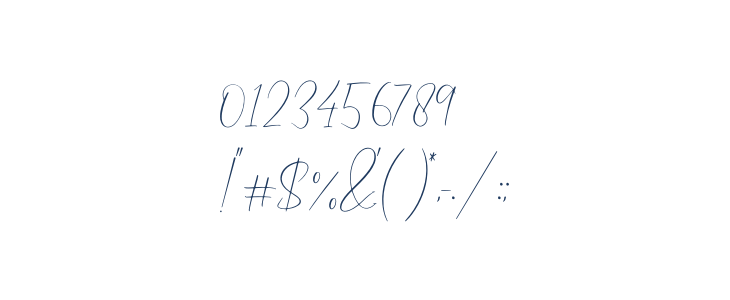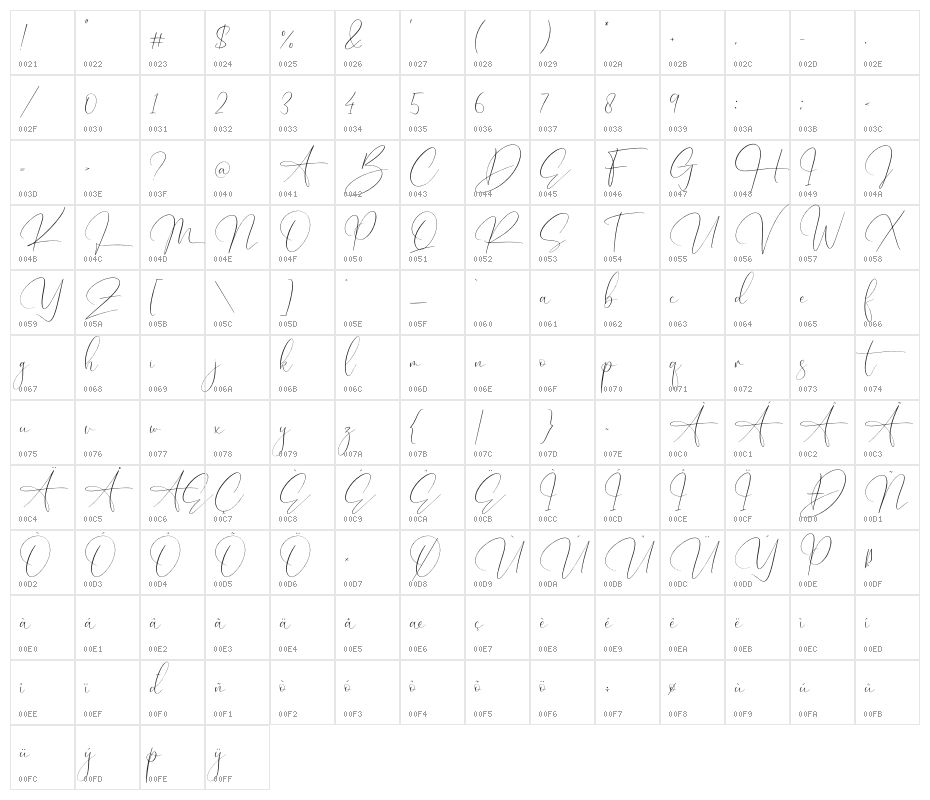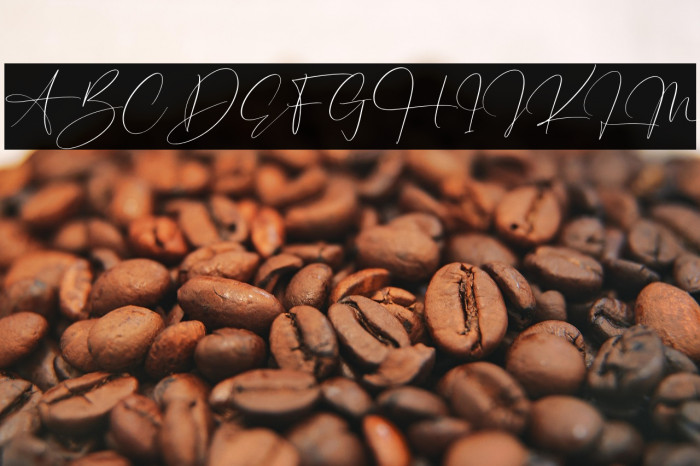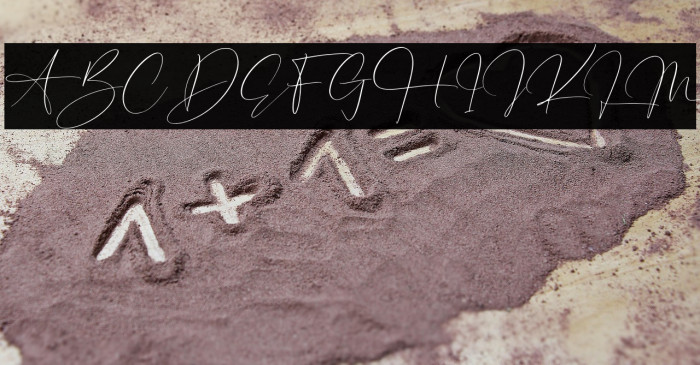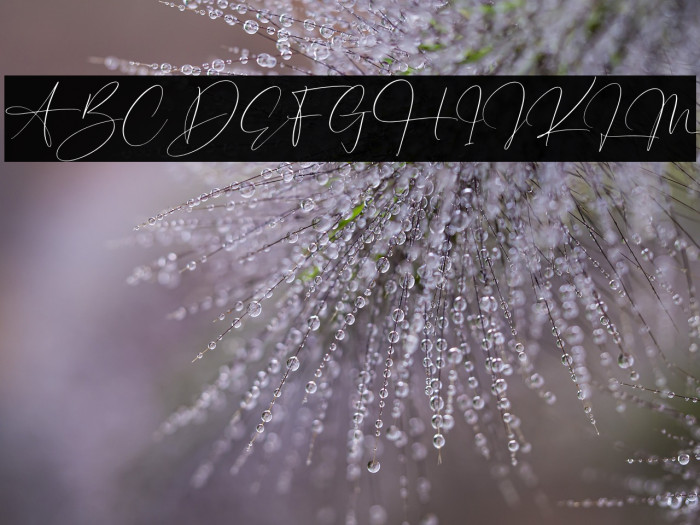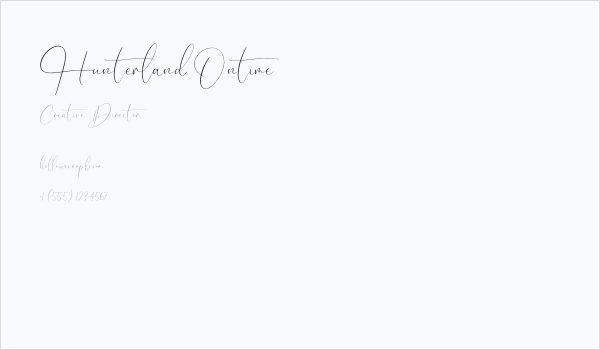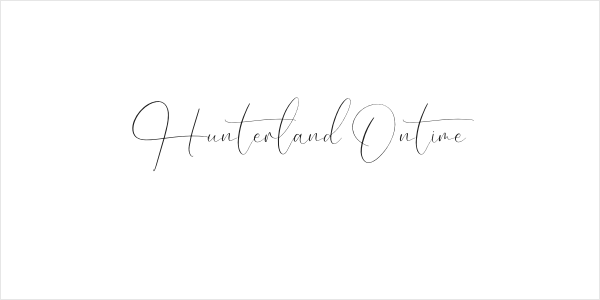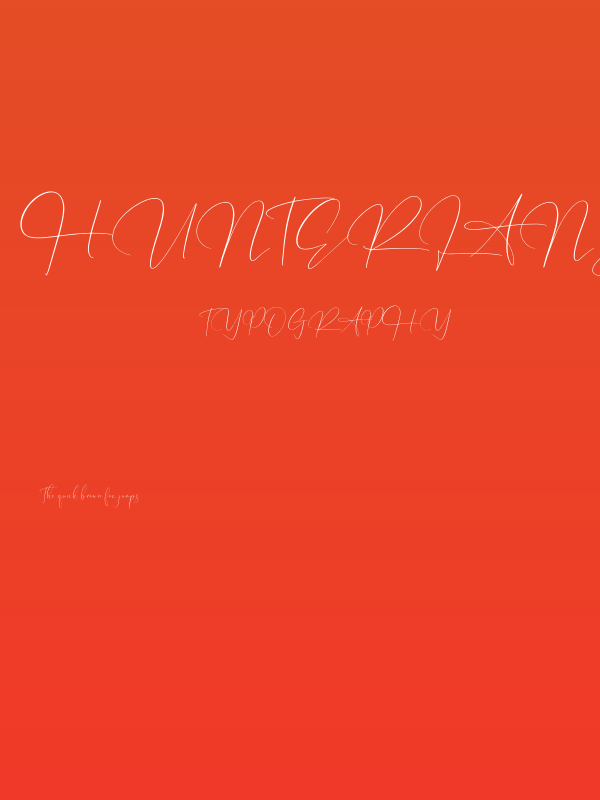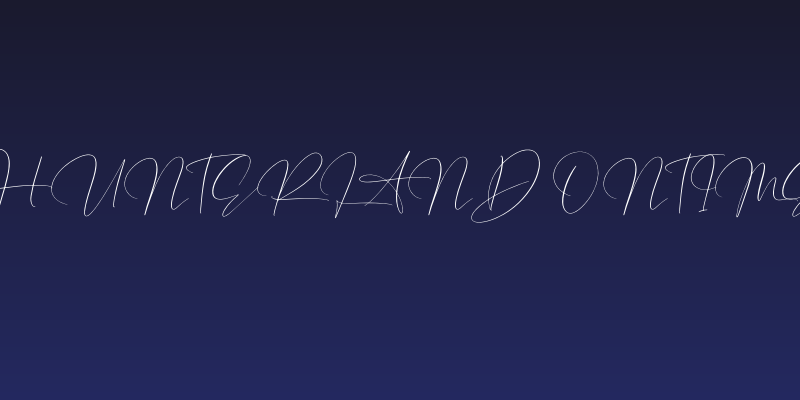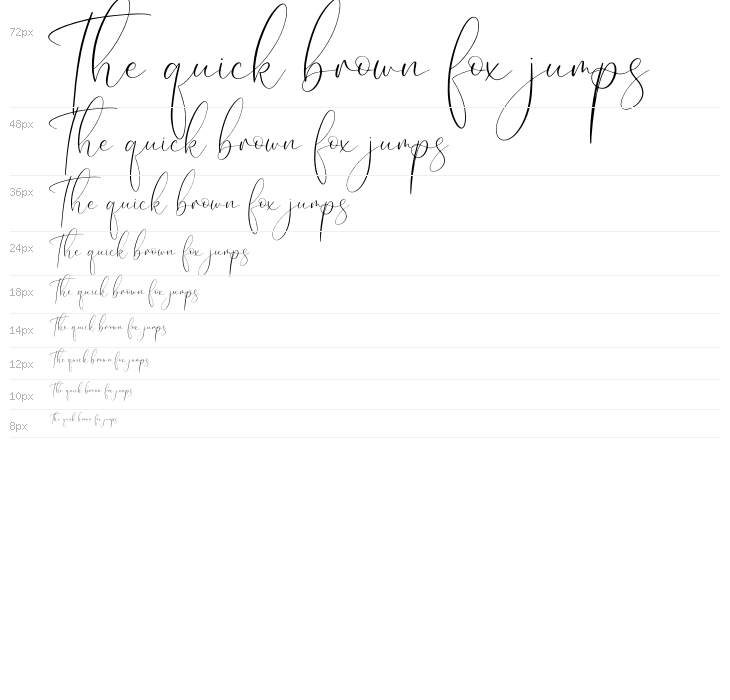
Hunterland Ontime Font
Hunterland Ontime Description
This font features an elegant and flowing script style, characterized by its delicate and intricate letterforms. The uppercase letters are tall and graceful, with sweeping curves and loops that give a sense of motion and fluidity. The lowercase letters maintain this fluidity, with some letters extending below the baseline, adding to the font's dynamic appearance. The numerals are consistent with the overall style, featuring similar curves and a light touch. Special characters are thoughtfully designed to match the aesthetic, making this font versatile for various uses. The thin strokes and high contrast between thick and thin lines contribute to its sophisticated and refined look.